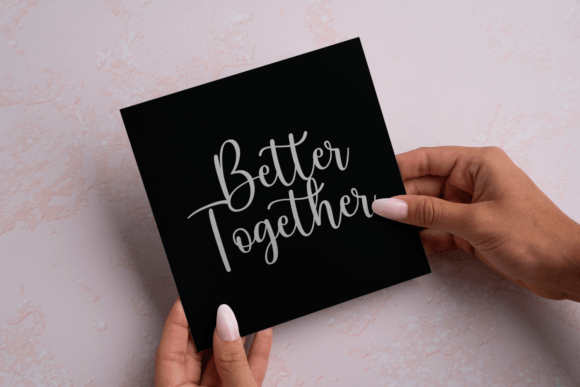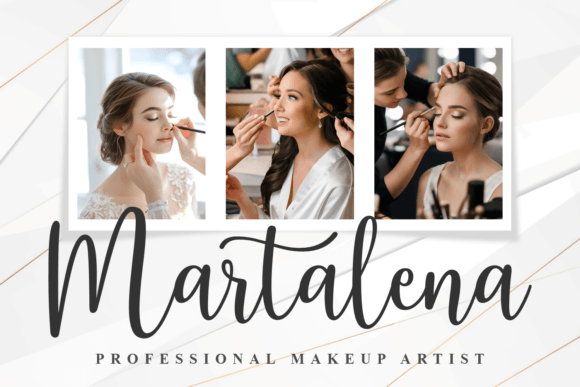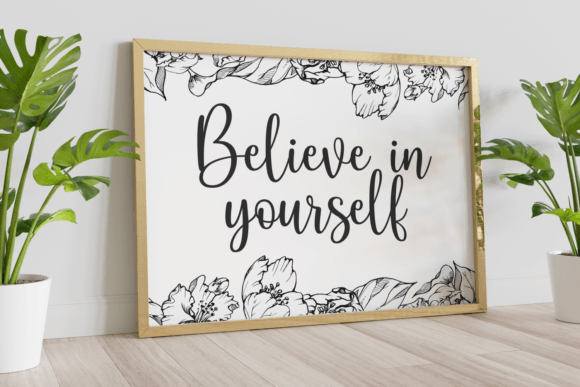
Introduction to Nakita Font
Nakita is a beautiful handwritten script font that looks casual and friendly.
It features flowing, connected letters that give a personal touch to any text Perfect for invitations, greeting cards, and anything that needs a warm, inviting feel.
Why Choose Nakita Font?